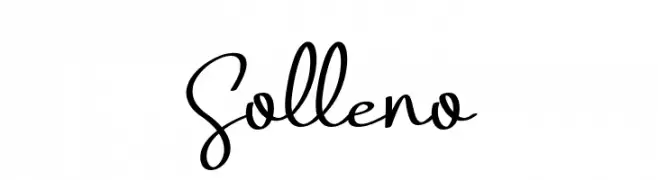
A casual, handwritten font with a playful and authentic style.
A lively, handwritten script font with flowing, dynamic characters.
A bold, flowing script font with a playful and dynamic style.
A bold, playful handwritten font with a casual and friendly style.
A fluid, cursive font with a casual elegance and seamless flow.
A lively, cursive handwritten font with fluid, connected strokes.